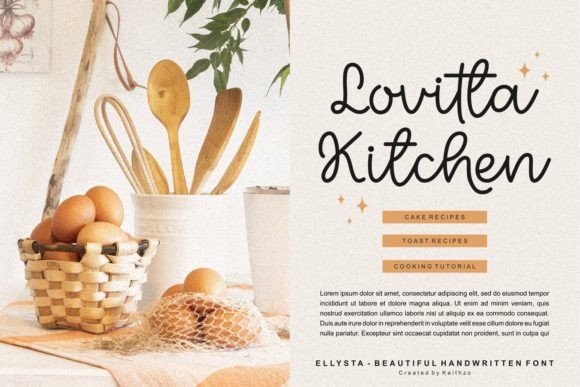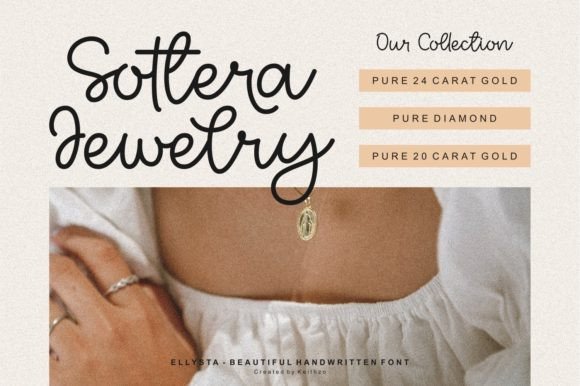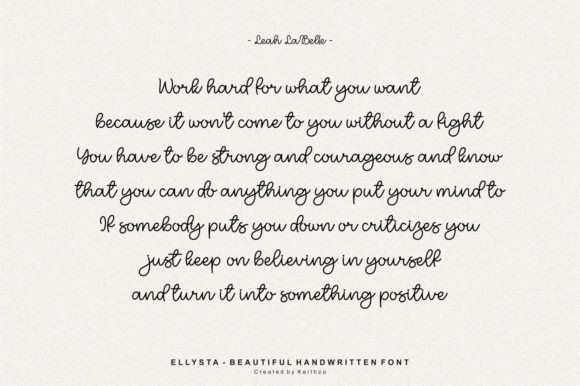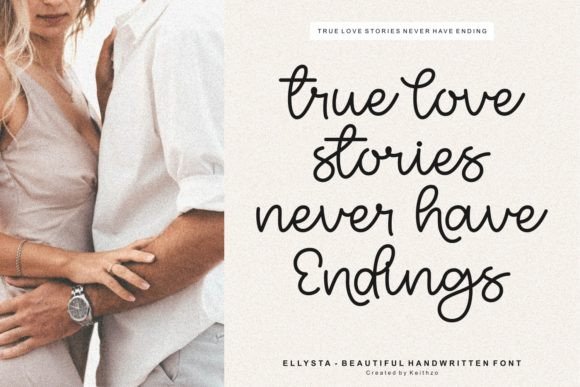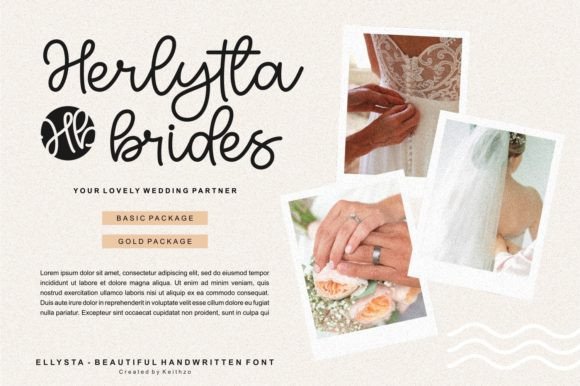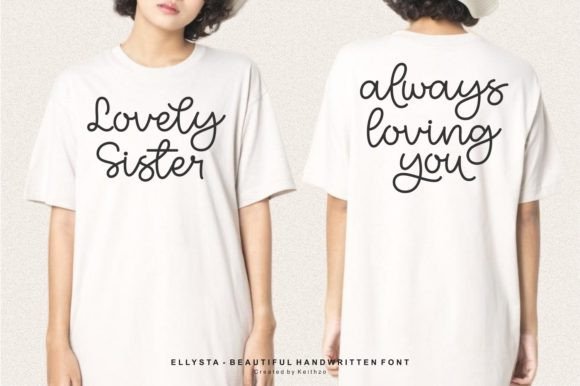
The Ellysta Font: Elevate Your Designs with Elegance and Sophistication
I’ll never forget the moment I stumbled upon the Ellysta font while working on a wedding invitation project for a close friend. I had been searching for the perfect font to convey the elegance and sophistication of the couple’s special day, but everything I found seemed either too bland or too over-the-top. That was until I saw Ellysta – with its flowing lines, delicate curves, and intricate details, it was love at first sight! ✨
A Personal Review of Ellysta Font
- ✨ Elegant and refined aesthetic that’s perfect for high-end designs
- ✅ Intricate details and swashes that add a touch of luxury
- 💻 PUA encoded for easy access to glyphs and swashes
- 📦 Versatile and suitable for various design projects, from wedding invites to product packaging
While Ellysta is an exceptional font, there are a few minor things to keep in mind: 🤔
- ⚠️ Some users may find the font a bit challenging to read in smaller sizes due to its intricate details
- ⚠️ Limited availability of language support, so it’s essential to check compatibility before use
A Practical Guide to Using Ellysta Font
The Story Behind Ellysta Font
Ellysta is the brainchild of a talented type designer who sought to create a font that embodies refined beauty and sophistication. Inspired by traditional calligraphy and handwritten scripts, Ellysta was crafted to bring a touch of luxury to various design projects. While the actual story behind the font’s creation may be shrouded in mystery, its elegance and versatility have captured the hearts of designers worldwide.
Q: What is PUA encoding, and how does it benefit Ellysta font users?
PUA (Private Use Area) encoding allows users to access a wide range of glyphs and swashes within the font, making it easier to create unique and customized designs.
Q: Is Ellysta suitable for body text or long-form content?
While Ellysta is an exquisite font, its intricate details may make it less suitable for body text or long-form content. It’s best used for headlines, titles, or short paragraphs where its elegance can shine.